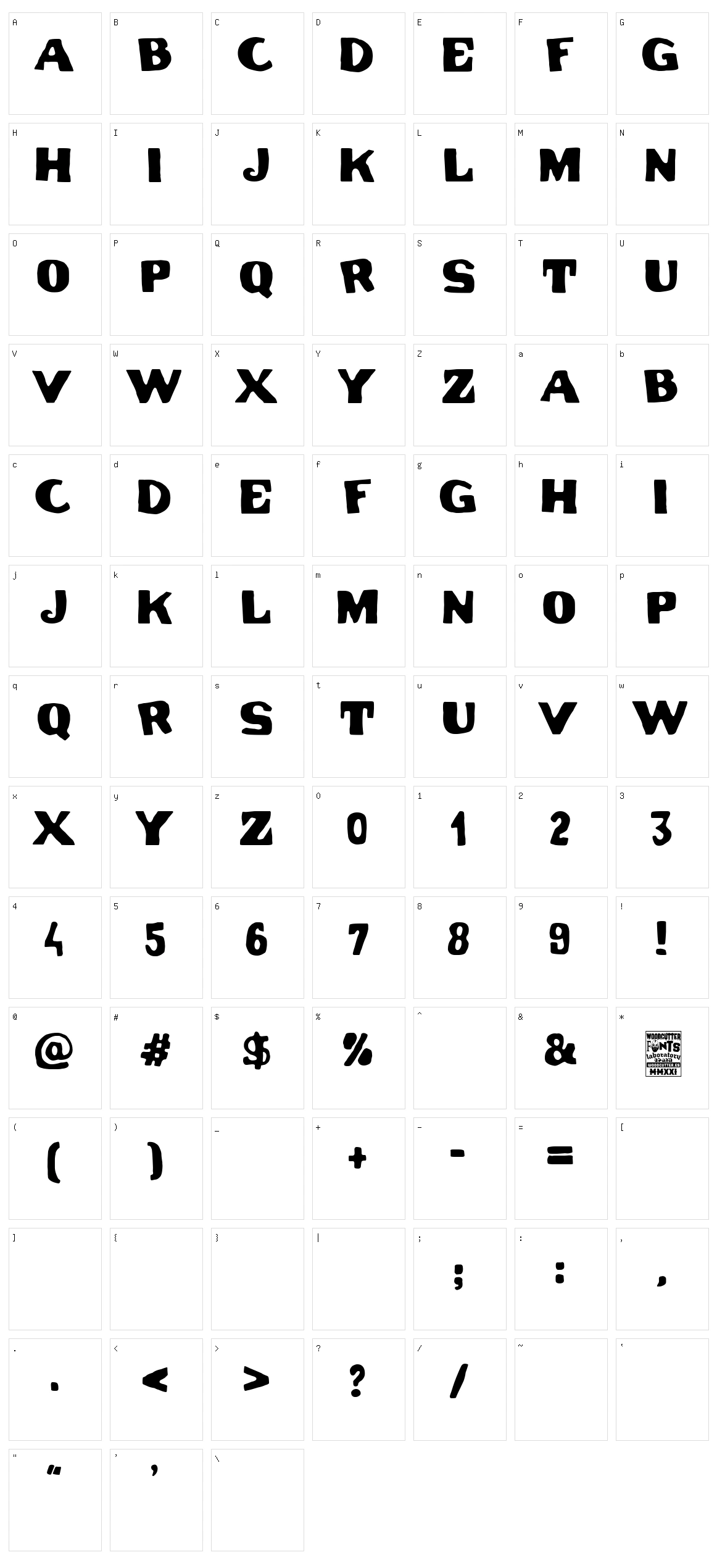
The free font Set of Teeth is carefully designed by Woodcutter, showcasing a thoughtful balance of creativity and usability and falls under the Cartoon font style. When you download the ZIP file, it contains only 87.73 KB of font files, making it lightweight and quick to download. Please review the license details below to understand permitted usage and distribution rights. If license information is not available, we recommend using this font for personal projects only or contacting the author directly for commercial usage permissions.